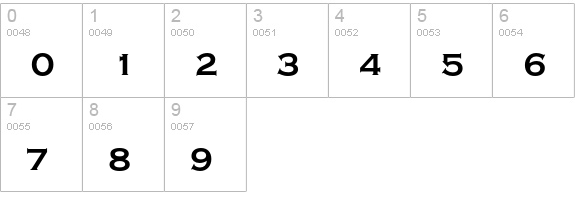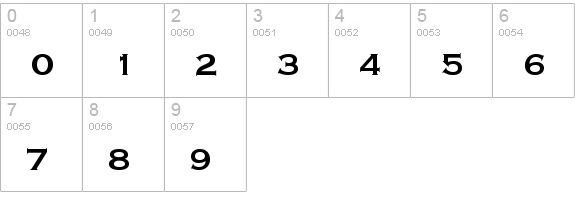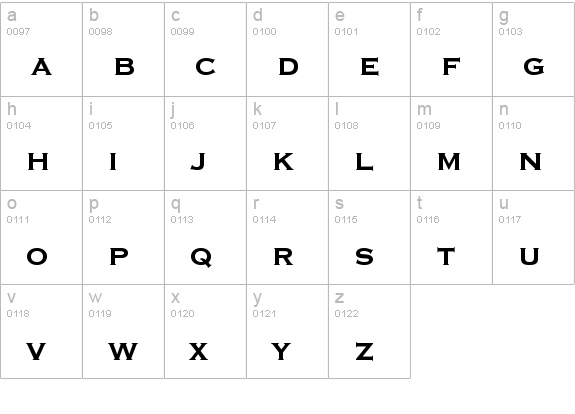
Copperplate Gothic Bold is a strong, high-contrast variant in the Copperplate typeface family \xE2\x80\x94 well suited to headlines, attention-grabbing titles, and strong calls-to-action.
Copperplate Gothic Bold font is a timeless and classic typeface that exudes elegance and authority. Its strong, bold strokes and clean lines make it perfect for headlines, titles, and other prominent text. The font's sophisticated and refined appearance adds a touch of sophistication to any design project. This font is versatile and can be used in a variety of contexts, from print materials to digital media. Whether you're designing a sleek magazine layout, a professional business card, or a modern website, Copperplate Gothic Bold font will help you make a bold statement. Best of all, Copperplate Gothic Bold font is available for free download at FontsMarket.com. This means that you can easily access this stylish and impactful font without any cost, making it a valuable resource for designers, creatives, and anyone looking to elevate their projects with a touch of sophistication. Download Copperplate Gothic Bold font today and add a touch of timeless elegance to your designs.